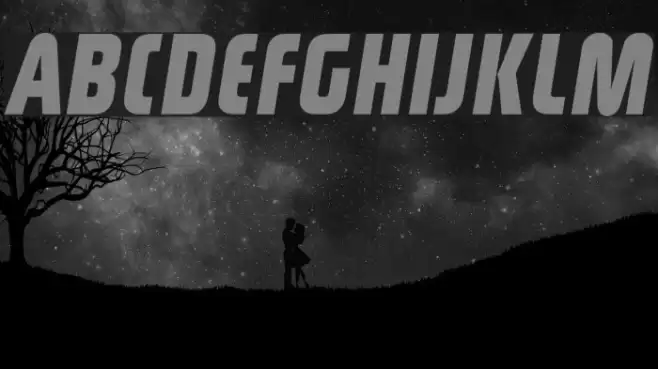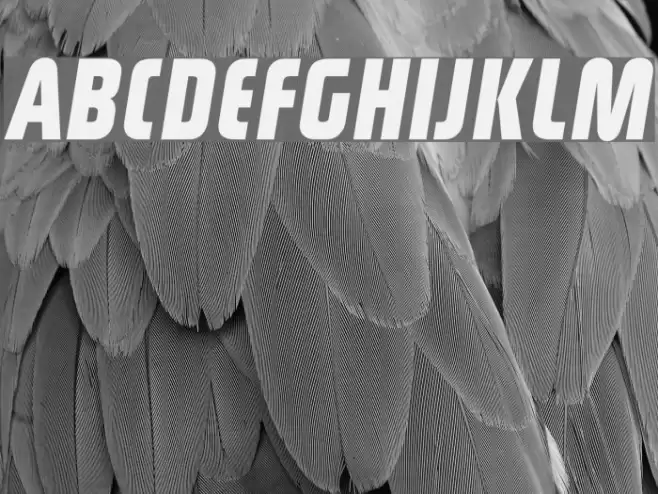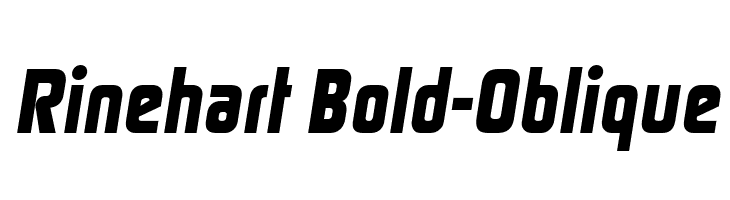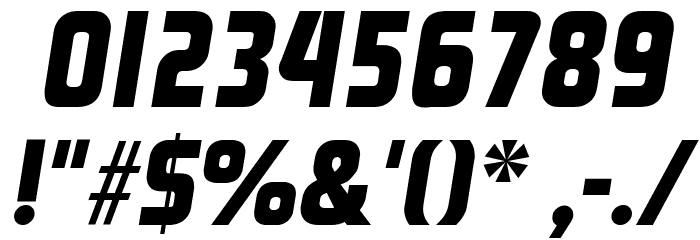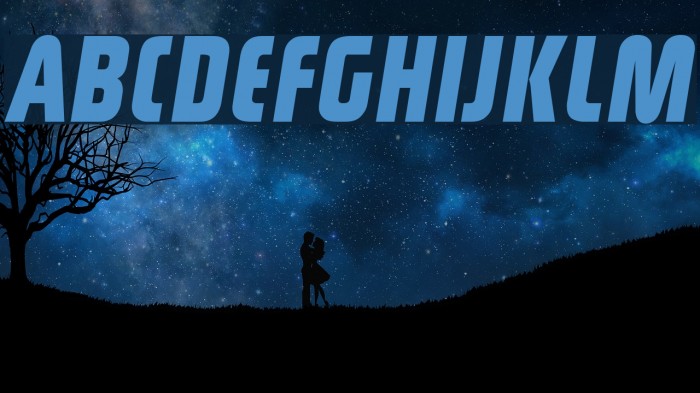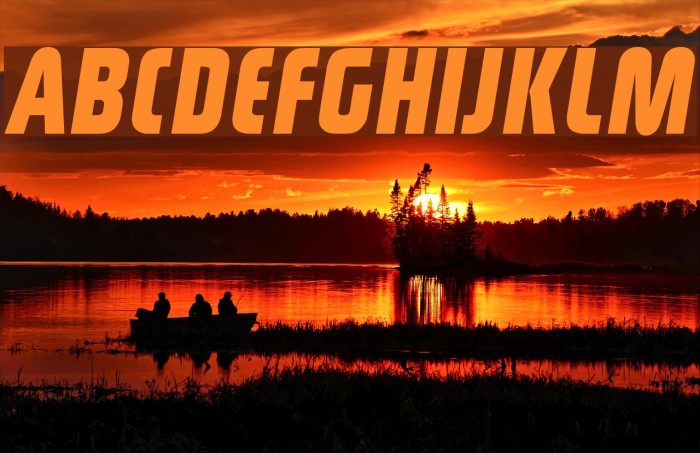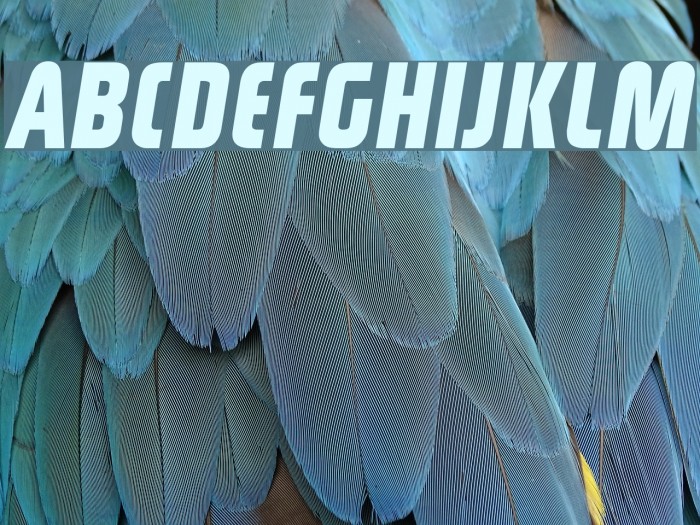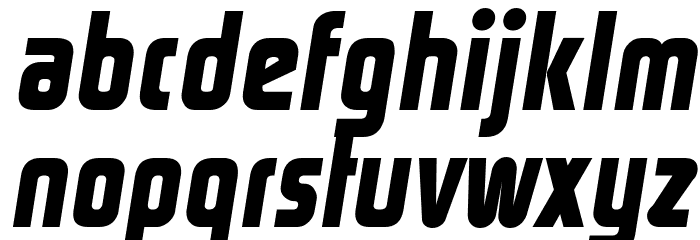
Rinehart Bold-Oblique Font
Rinehart Bold-Oblique Description
This font exhibits a bold and oblique style, characterized by its strong, slanted letterforms that convey a sense of motion and dynamism. The uppercase and lowercase letters maintain a consistent weight, providing a uniform appearance across the alphabet. The numerals are equally bold, ensuring readability and impact. Special characters are designed with the same attention to detail, making them suitable for various applications. The overall design is modern and assertive, ideal for projects that require a strong visual presence.
A bold, oblique font with a modern and dynamic style from Uncategorized fonts.
- Proposed Projects: Ideal for sports branding, dynamic posters, and impactful headlines.